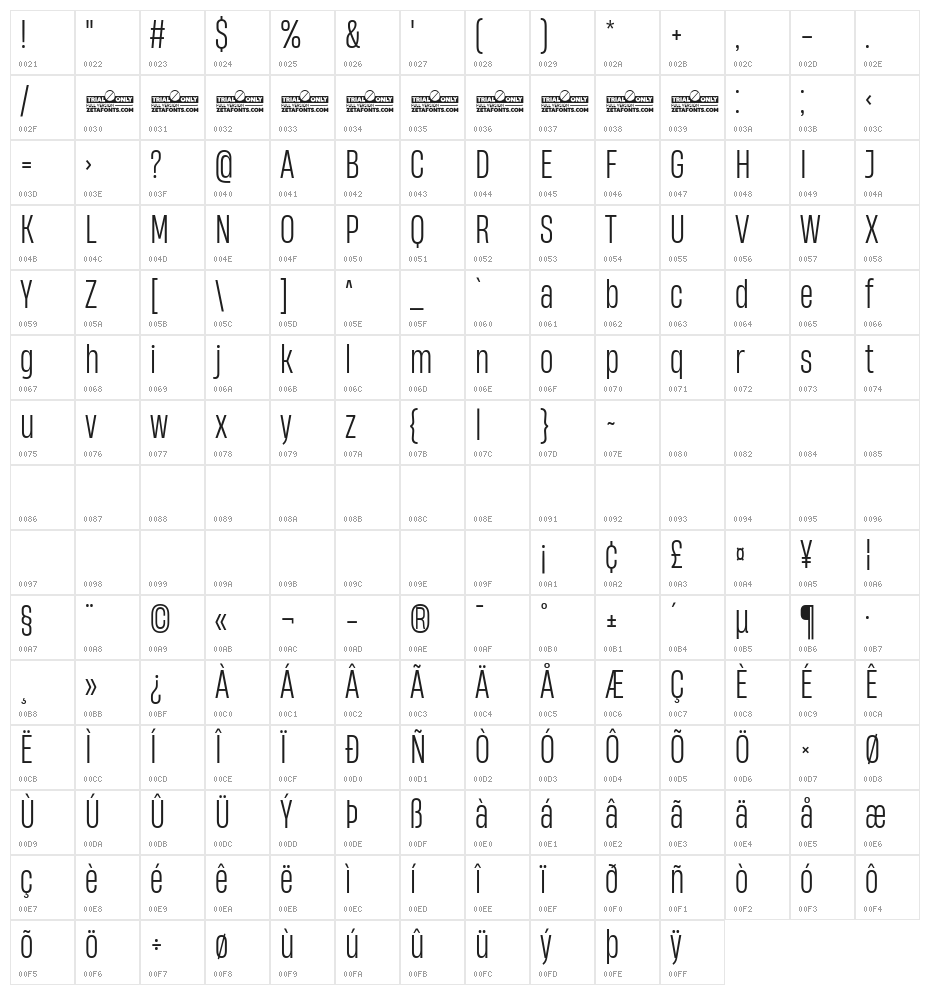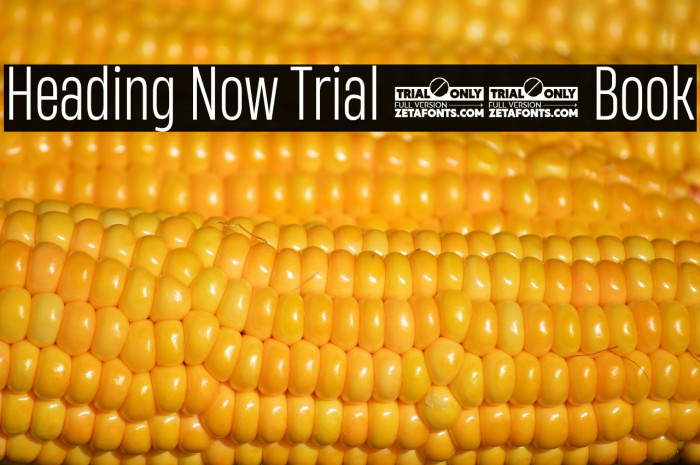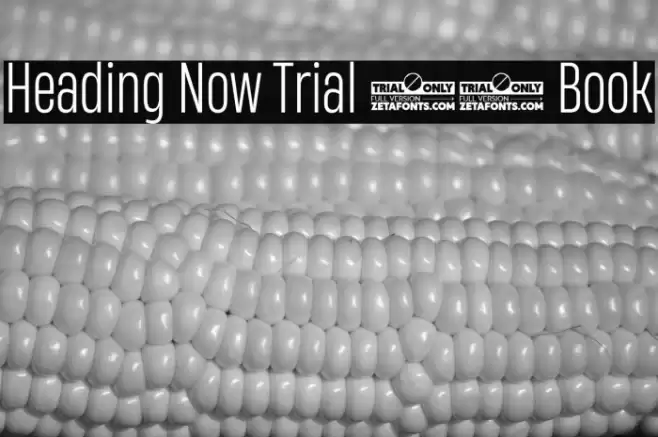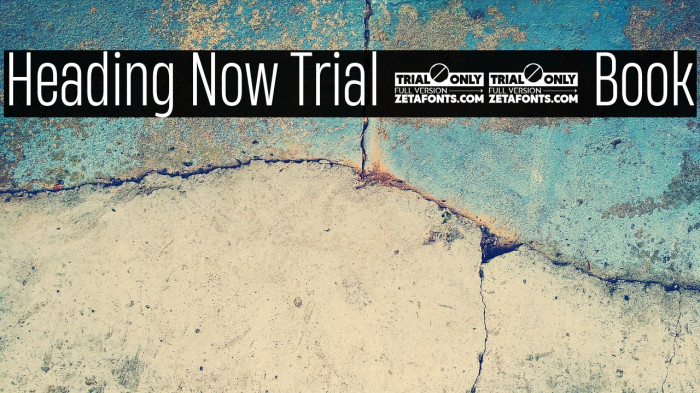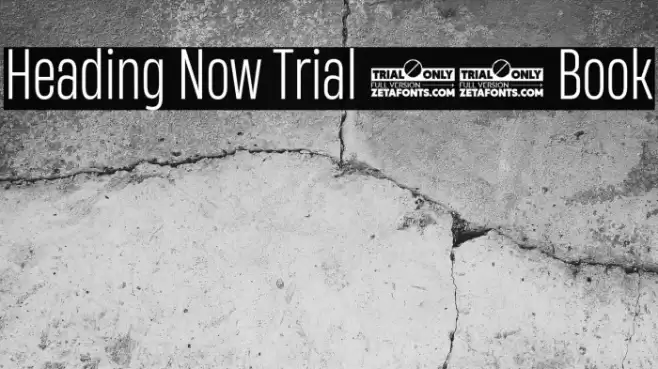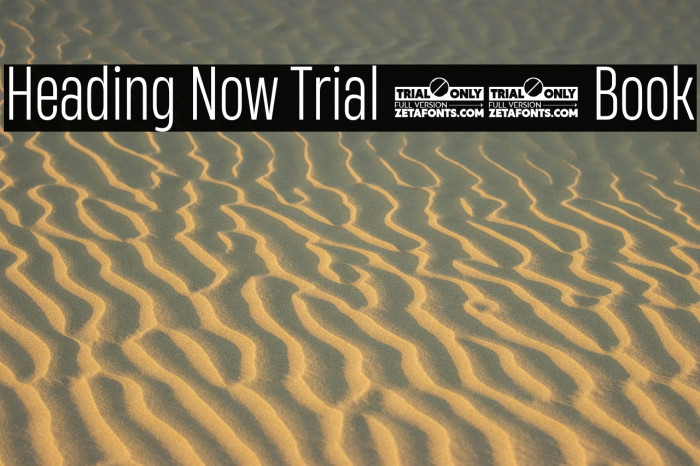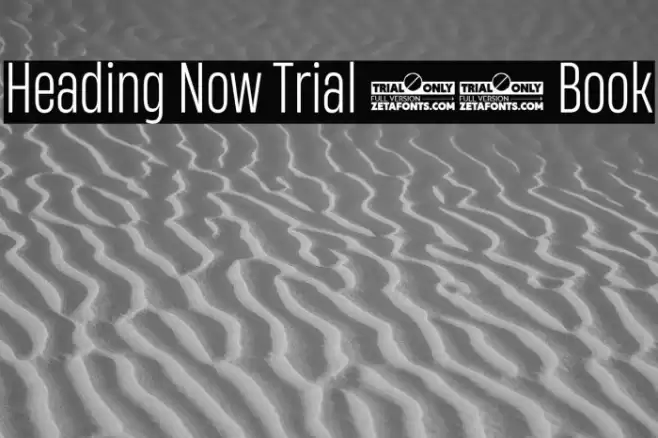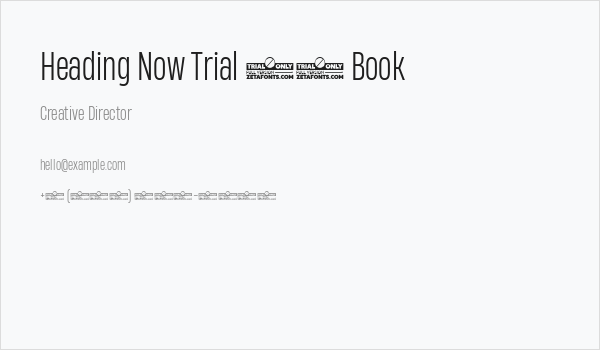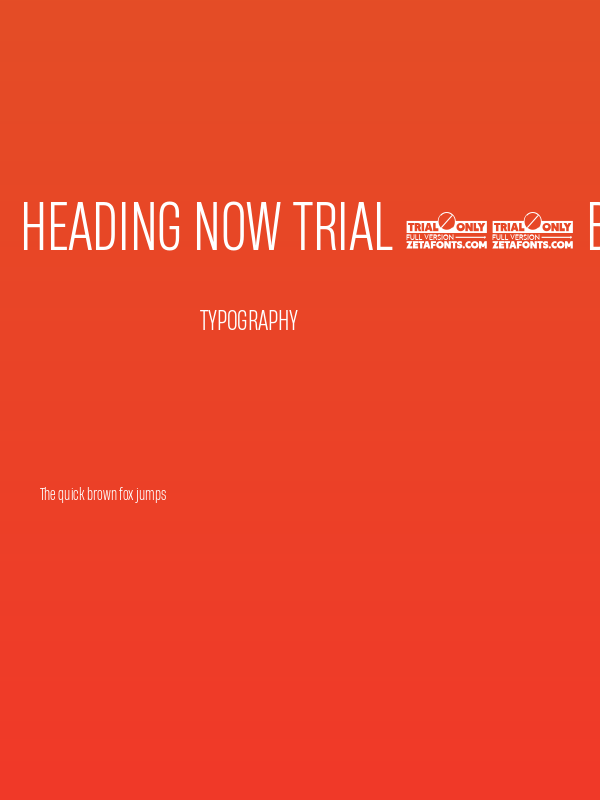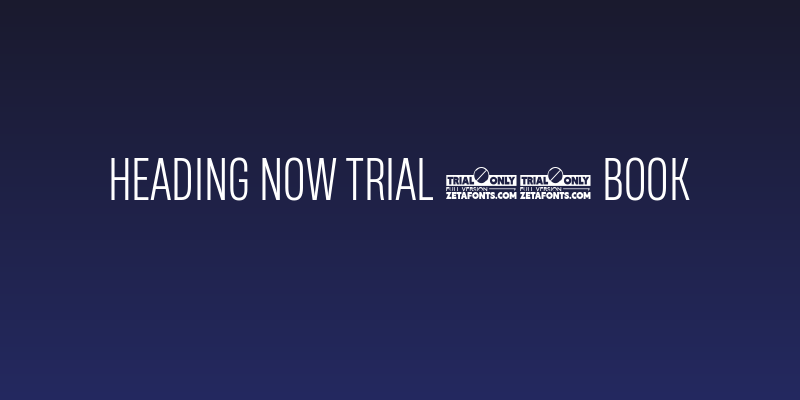
Heading Now Trial 43 Book Font
Heading Now Trial 43 Book Description
This font features a clean, modern sans-serif design with tall, narrow letterforms. The characters are evenly spaced, providing a balanced and uniform appearance. The uppercase and lowercase letters maintain a consistent height ratio, enhancing readability. The font's geometric structure is evident in its straight lines and smooth curves, making it suitable for contemporary design projects. The numerals and special characters are designed to match the overall aesthetic, ensuring cohesion across different text elements.